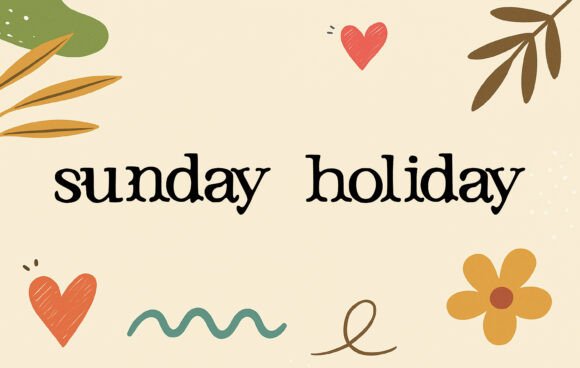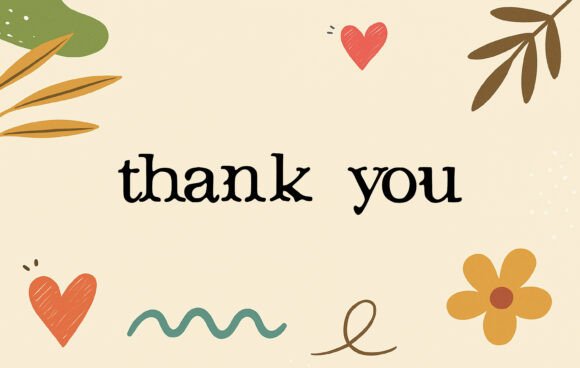
Discover the Versatility of Fauzi Font: Elevate Your Designs to New Heights
In the world of typography, a great font can make all the difference in taking your creative projects to the next level. If you’re a designer, crafty DIY enthusiast, or simply someone who appreciates the art of beautiful text, then you’re in for a treat with Fauzi Font. This stunning font is designed to be a true favorite among creatives, offering a perfect blend of legibility, style, and versatility.
What Makes Fauzi Font So Special?
Fauzi Font is crafted with the intention of being a go-to choice for a wide range of design projects. Whether you’re working on magazine headlines, t-shirts, social media graphics, branding materials, wedding invitations, or greeting cards, this font is poised to become your new best friend. Its clean lines, elegant curves, and highly legible design make it an excellent choice for both title and body text.
Key Features of Fauzi Font
- Legibility: One of the standout features of Fauzi Font is its exceptional legibility. This ensures that your message is conveyed clearly, whether it’s used in a large headline or smaller body text.
- Versatility: Fauzi Font is incredibly versatile, making it suitable for a vast array of design projects. From digital media to print materials, this font adapts seamlessly to different contexts.
- Aesthetic Appeal: With its balanced design and elegant look, Fauzi Font adds a touch of sophistication to any project. It’s perfect for designers looking to elevate their work with a professional yet creative feel.
- Easy to Use: Fauzi Font is designed to be user-friendly. Whether you’re a seasoned designer or just starting out, you’ll find it easy to incorporate into your projects.
Applications of Fauzi Font
The possibilities are endless with Fauzi Font. Here are some of the many ways you can use this fantastic font:
- Magazine Headlines: Create eye-catching titles that draw readers in. Fauzi Font’s unique style ensures your headlines stand out.
- T-Shirts and Merchandise: Add a professional touch to your apparel designs. Fauzi Font’s clarity and style make it perfect for wearable designs.
- Social Media Graphics: Enhance your social media presence with stylish and legible graphics. Fauzi Font helps ensure your message is both seen and understood.
- Branding: Establish a strong brand identity with a font that communicates your message effectively. Fauzi Font’s elegance and readability make it an excellent choice for logos and marketing materials.
- Wedding Invitations and Cards: Add a touch of class to your wedding invitations, greeting cards, and other personal stationery with Fauzi Font’s beautiful design.
Why Choose Fauzi Font?
In a sea of fonts, Fauzi Font stands out for its unique blend of style, legibility, and adaptability. It’s not just a font; it’s a tool that can help you communicate your ideas more effectively and bring your creative visions to life. Whether you’re a professional designer or someone who loves to dabble in design, Fauzi Font offers the flexibility and aesthetic appeal you need to create stunning projects.
Fauzi Font is more than just a typeface; it’s a key to unlocking your creative potential. With its exceptional legibility, versatile design, and aesthetic appeal, it’s poised to become an indispensable part of your design toolkit. Whether you’re working on a commercial project or a personal craft, Fauzi Font can help elevate your work to new heights. So why wait? Explore the possibilities with Fauzi Font today and discover how it can transform your designs.